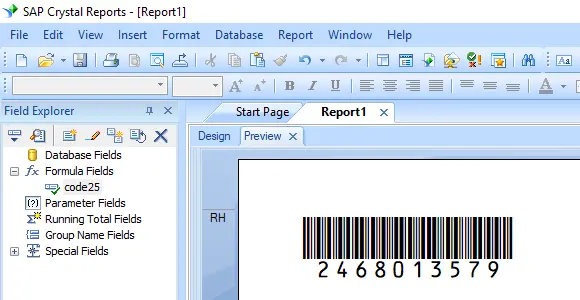
Code 25 bar code symbology, also known as standard 2 of 5, or industrial 2 of 5, is designed to encode numeric-only data.
The encoding of code 25 is quite simple. Just bracket your data and check digit (if applicable) with left bracket ('[','{','(') and right bracket (']', '}', ')'), then apply one of the Code25 font typefaces listed below, code25 barcode will appear.
There are 14 code25 barcode fonts contained in the package as listed below, marked by different trailing indicators. Barcodesoft Code25 fonts vary in aspect ratios. Those code 25 fonts with Hr in name have human readable text underneath code 25 barcode.
Here is the list of Barcodesoft Code25 Barcode Fonts
Aspect Ratio | With Human Readable | Without Human Readable |
---|---|---|
XXS | Code25XXSHr | Code25XXS |
XS | Code25XSHr | Code25XS |
S | Code25SHr | Code25S |
M | Code25MHr | Code25M |
L | Code25LHr | Code25L |
XL | Code25XLHr | Code25XL |
XXL | Code25XXLHr | Code25XXL |